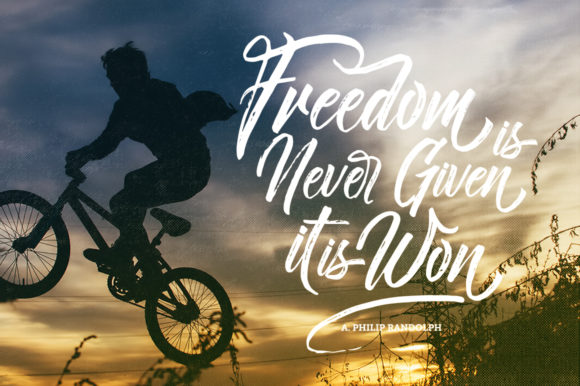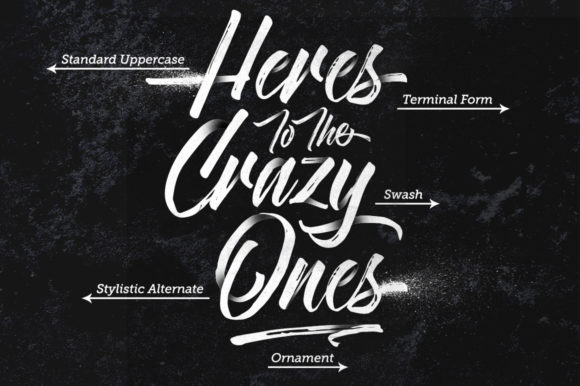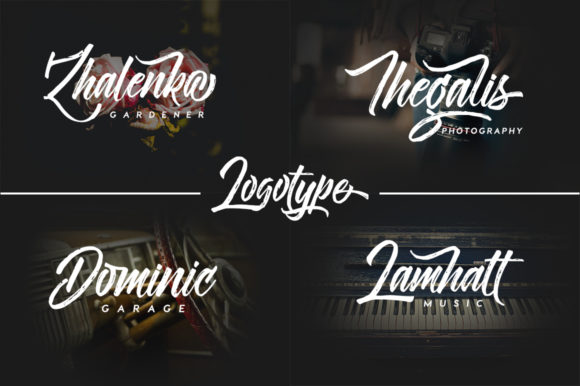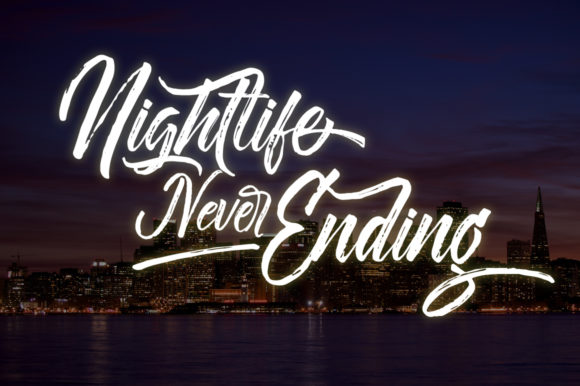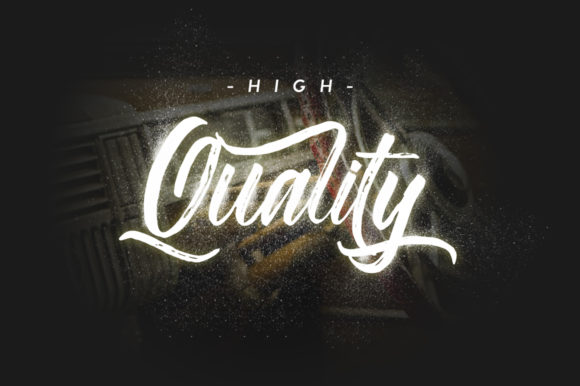
Introduction to Novitha Font
Novitha is a stunning handwritten font with a brush feel.
It will turn any design project into a true stand out .
Key Features of Novitha Font
Why Choose Novitha Font?
Novitha Font offers exceptional quality and versatility, making it a valuable addition to your design toolkit. Whether you’re creating for personal projects or commercial use, Novitha Font delivers professional results.